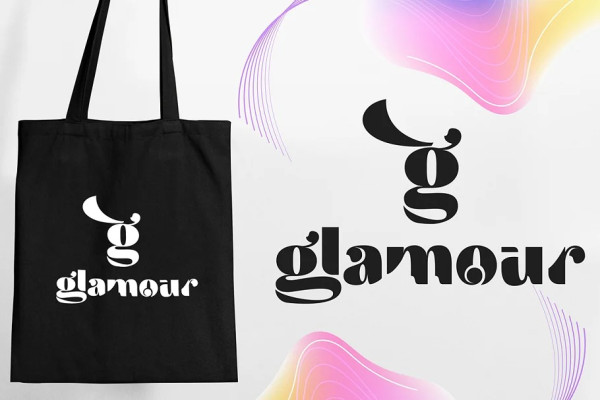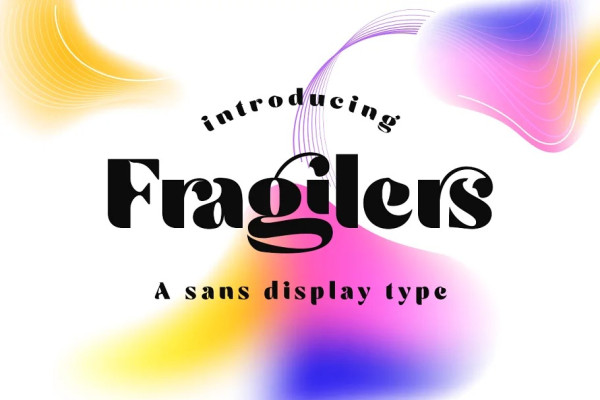
Fragilers Font
Fragilers Font is a bold sans serif with high contrast, making it a versatile and elegant typeface. Fragile contrast lines and smooth terminals give a sleek and elegant look to logos, holiday cards, wedding invitations, quotes, advertisements, and more. Fragilers is a versatile typeface full of character to enrich your designs. And of course multilingual support.